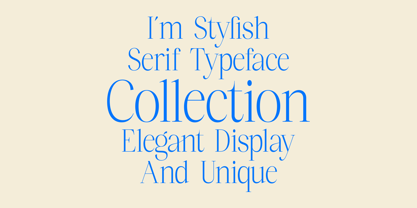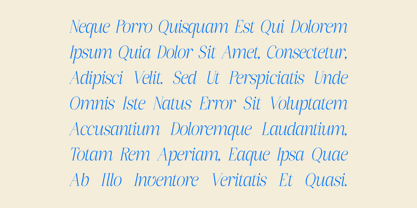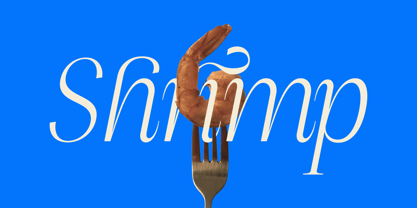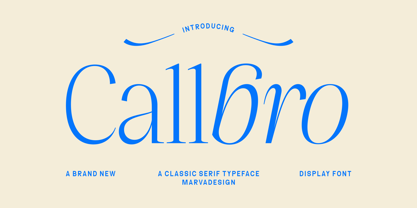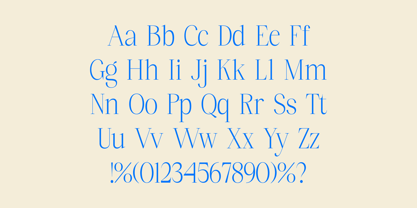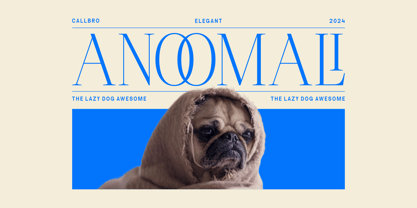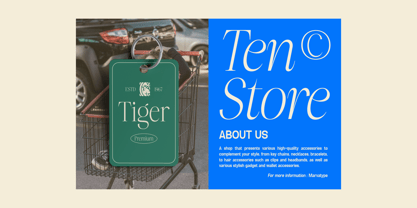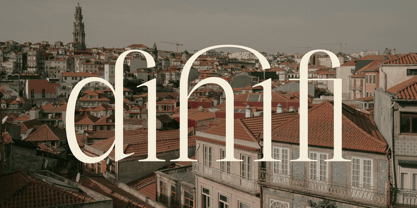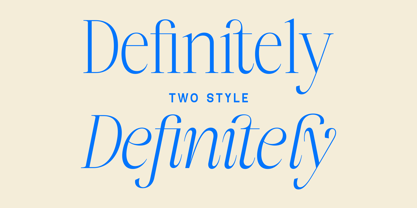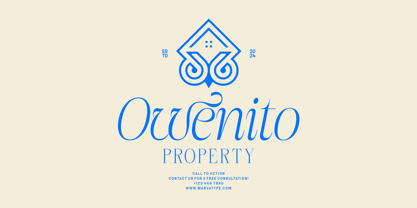
Callbro
by Marvadesign
The Callbro Font Family was designed by Febrie Setiawan and published by Marvadesign. Callbro contains 2 styles and family package options. More about this family
Introducing Callbro is an elegant serif typeface that combines sophistication with versatility. This font offers two distinctive styles: Regular and Italic Semi-Script, providing options for both classic and expressive designs. One of Callbro's standout features is its unique alternative characters and ligatures, adding a touch of creativity and charm to your text. The font's clean and refined design ensures excellent readability, making it suitable for a variety of purposes, including corporate branding, editorial layouts, and professional presentations. Whether you're designing a luxurious logo, an elegant invitation, or a high-end marketing campaign, Callbro delivers timeless beauty with a modern edge. Its balance of functionality and artistic flair makes it a perfect choice for creating impactful designs.